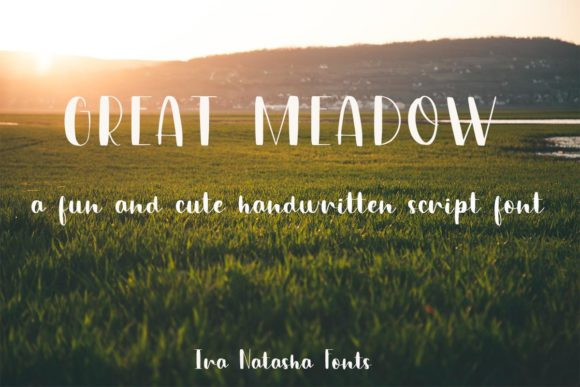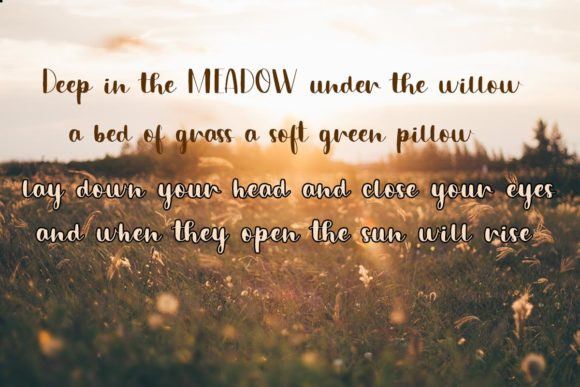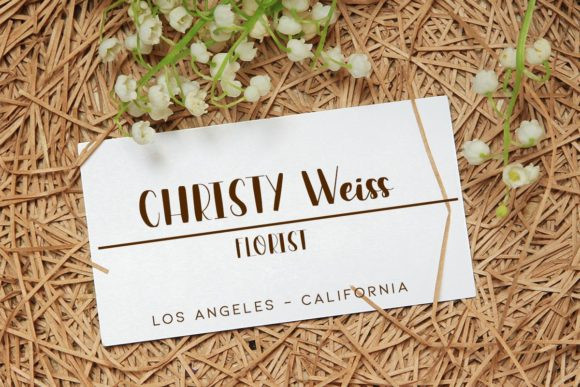
Great Meadow Font
Great Meadow is a fun and cute handwritten font. It will elevate a wide range of design projects to the highest level, be it branding, headings, wedding designs, invitations, signatures, logos, labels, and much more!